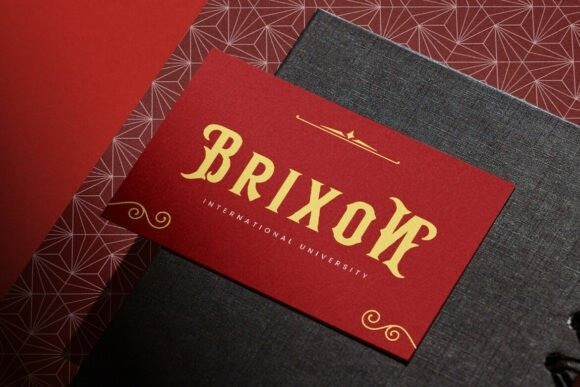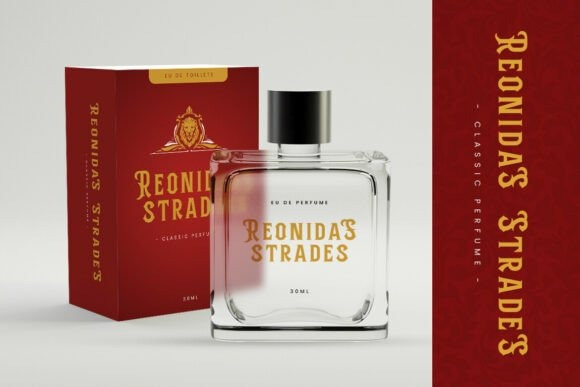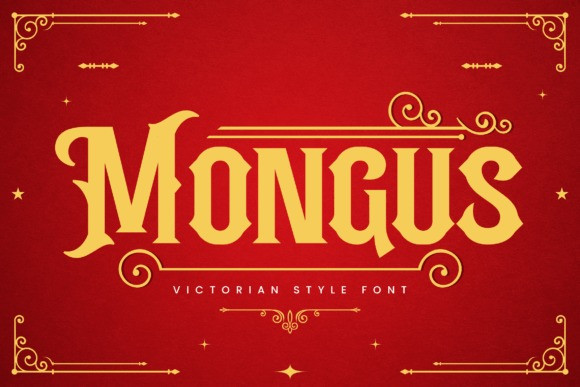
Mongus Vintage Font
Mongus Vintage Font is a magnificent Victorian-style font that captures the essence of a bygone era. It features a bold, classic design with ornate serifs and decorative flourishes, exuding a sense of elegance, sophistication, and vintage charm. The typeface is a perfect blend of historical artistry and modern readability, making it ideal for a wide range of creative projects.
This font includes both uppercase and lowercase letters with distinct ornamental details, along with numerals and extensive multilingual and symbolic support. Its rich, decorative character makes Mongus an excellent choice for branding, headlines, logos, posters, whiskey labels, and any design that requires a touch of classic, luxurious, and timeless flair.